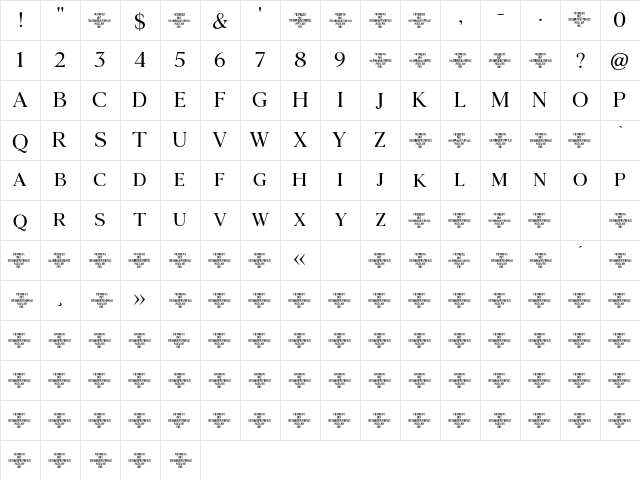
Agatho RegularCAPS
| Designer | Andrii Shevchyk |
Design Context for Agatho Typeface
Agatho offers clean, dependable letterforms without strong stylistic allegiance, making it a practical choice for designers who need flexibility.